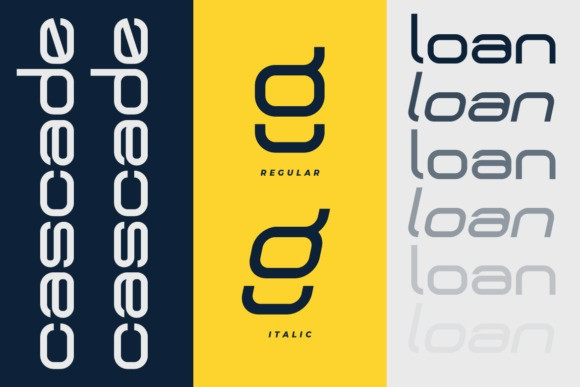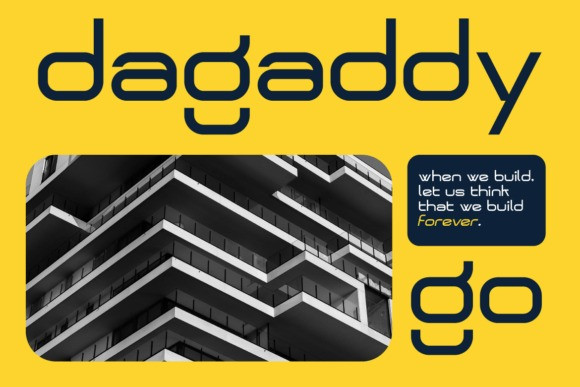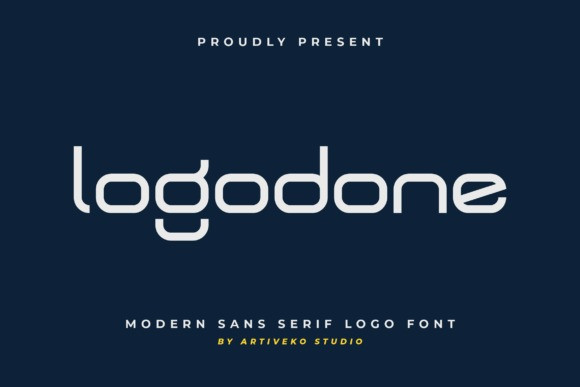
Logodone Font
Logodone Font is a modern logo font crafted by Iwan Alwan, featuring a unique design with variations in both uppercase and lowercase letters. It supports multiple languages and offers ligatures and alternates, making it versatile for various branding needs. Ideal for creating distinctive logos, Logodone stands out with its contemporary style and flexibility.